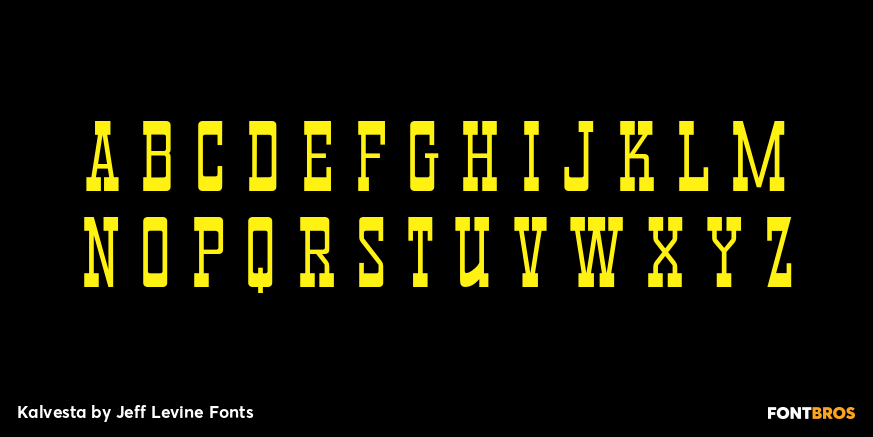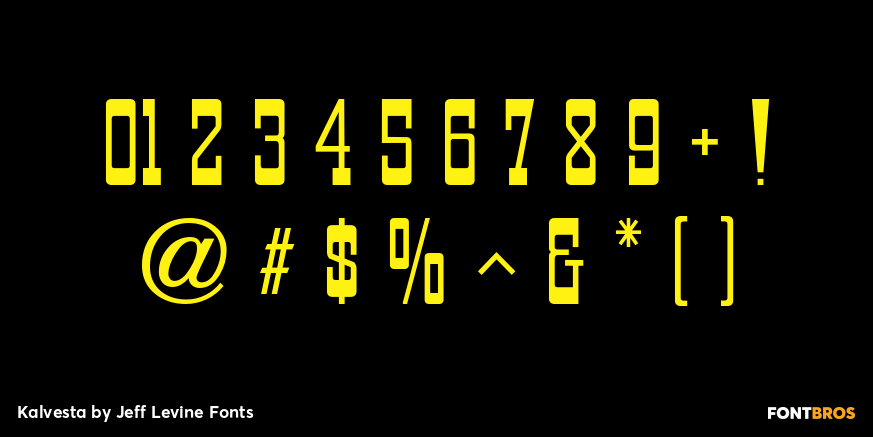
Kalvesta
A bit of experimentation with the Art Deco-flavored Sign Card JNL brings forth a hybrid alphabet where Art Deco meets Western. The result is Kalvesta JNL. This font's unusual character shapes defy and yet redefine the notion of the classic Western alphabet. The name is from a town in Kansas.